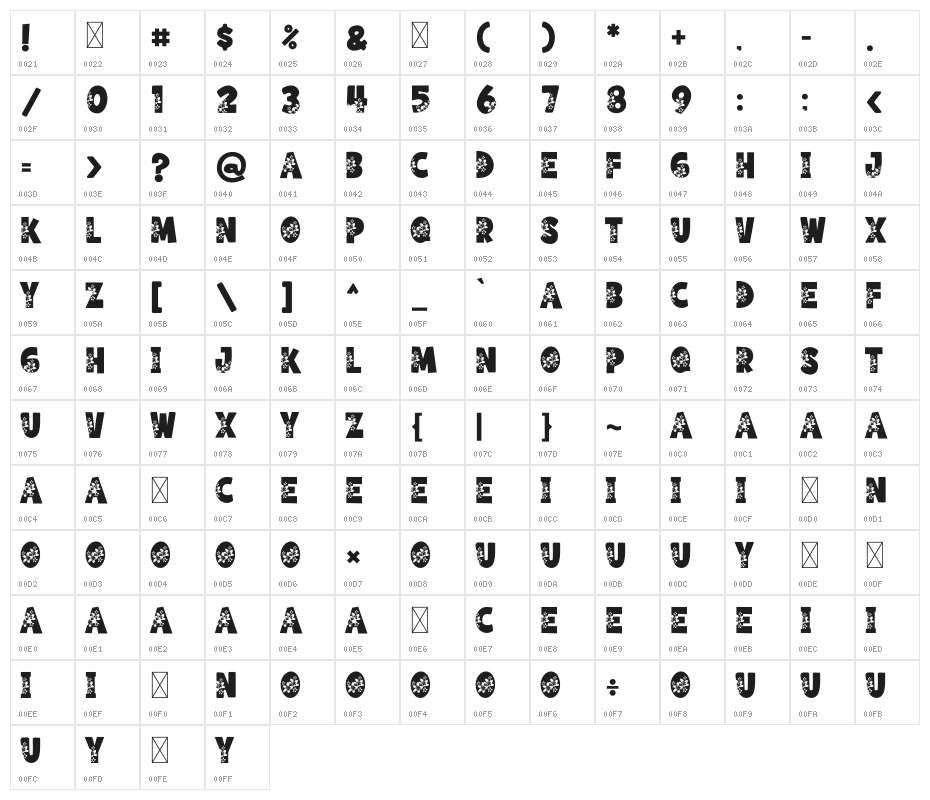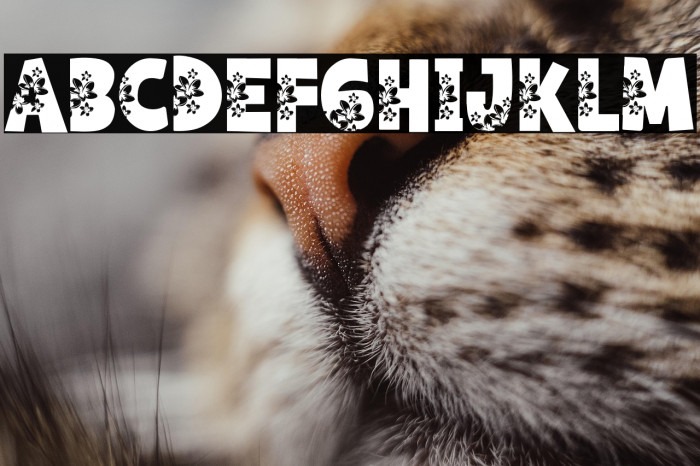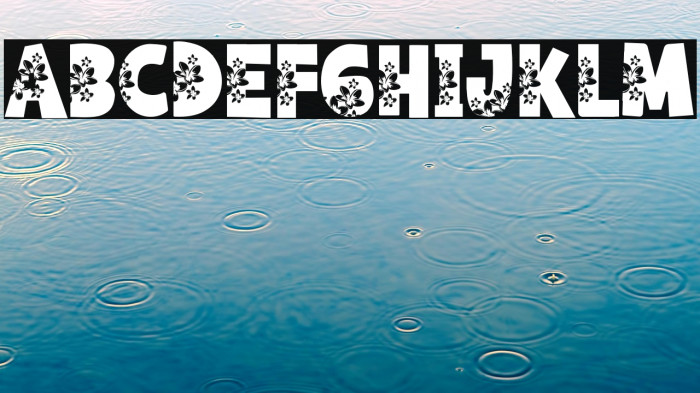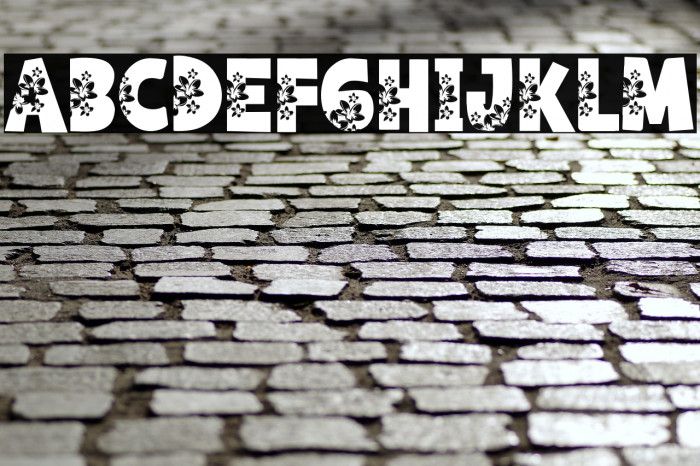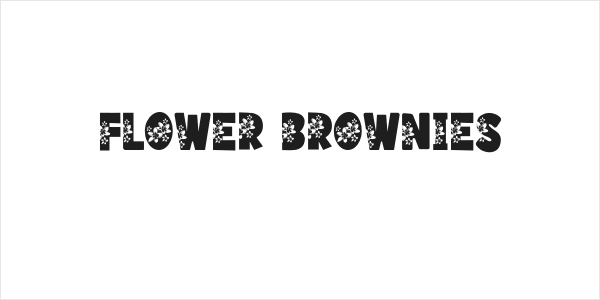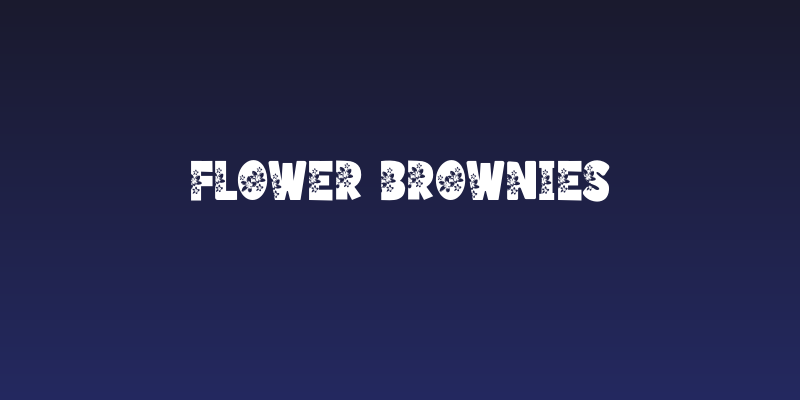
Flower Brownies Font
Flower Brownies Description
This font features bold, blocky characters adorned with intricate floral patterns. Each letter and number is filled with detailed flower designs, creating a unique and decorative appearance. The style is playful yet sophisticated, making it suitable for eye-catching designs. The characters are evenly spaced, ensuring readability despite the complex patterns. The floral elements add a touch of elegance and creativity, making this font ideal for projects that require a distinctive and artistic flair.
| Proposed Projects | Ideal for wedding invitations, greeting cards, posters, and branding materials that require a decorative and artistic touch. |